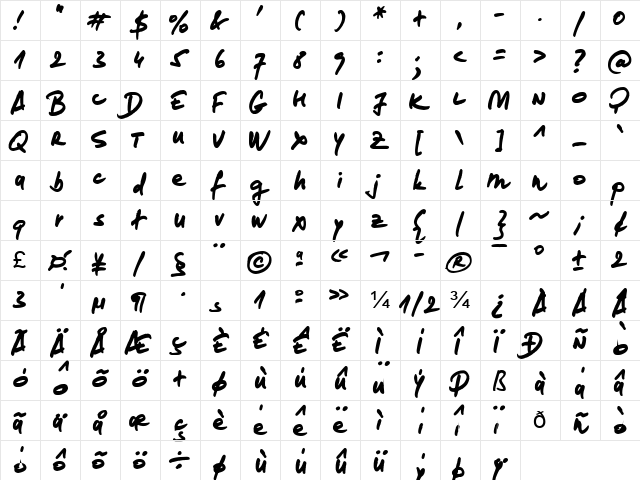
loremipsum Regular
| Foundry | The Monotype Corporation |
| Designer | Monotype Type Drawing Office - Robin Nicholas, Patricia Saunders 1982 |
Design Context for loremipsum Typeface
loremipsum is a composed and adaptable typeface that performs quietly and consistently across a wide range of design contexts.